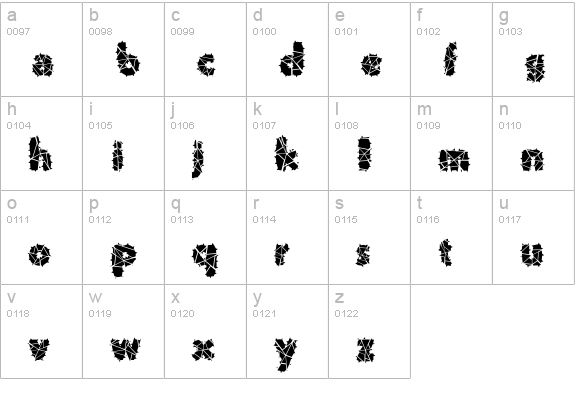
Prison Wire 1 Font Details
Introducing Prison Wire 1 font, a unique and edgy typeface that exudes a sense of confinement and structure. The sharp angles and bold lines of this font give it a strong and commanding presence, perfect for making a statement in your design projects. With its industrial aesthetic and modern appeal, Prison Wire 1 font is versatile and can be used for a variety of purposes, from posters to logos to branding materials. Its distinct character sets it apart from other fonts, adding a touch of intrigue and personality to your designs. Best of all, Prison Wire 1 font is freely available to download at FontsMarket.com, allowing you to access this striking font with ease. Whether you're a designer looking to add a bold element to your work or a creative looking to make a statement, Prison Wire 1 font is sure to captivate and inspire. Download it today and unleash its power in your projects.